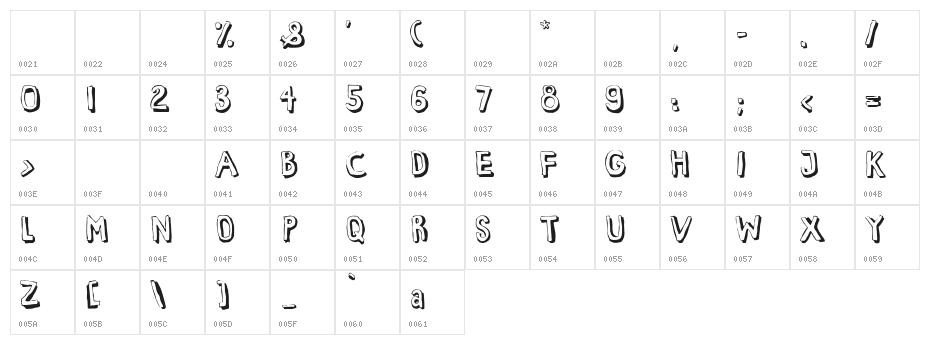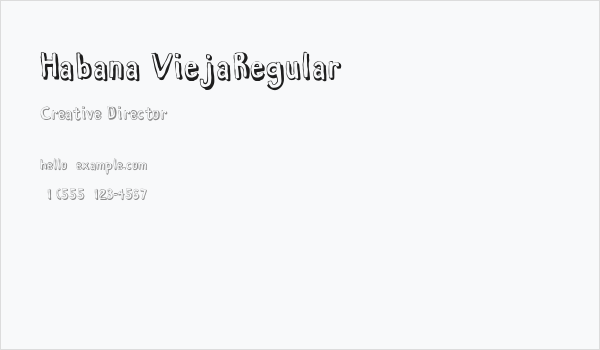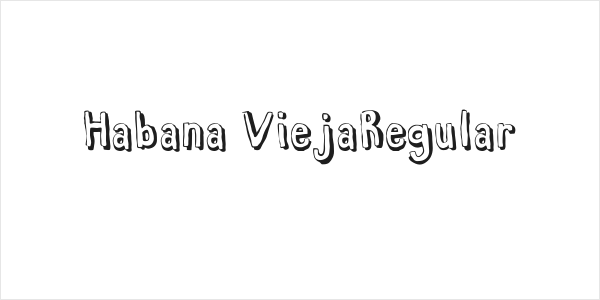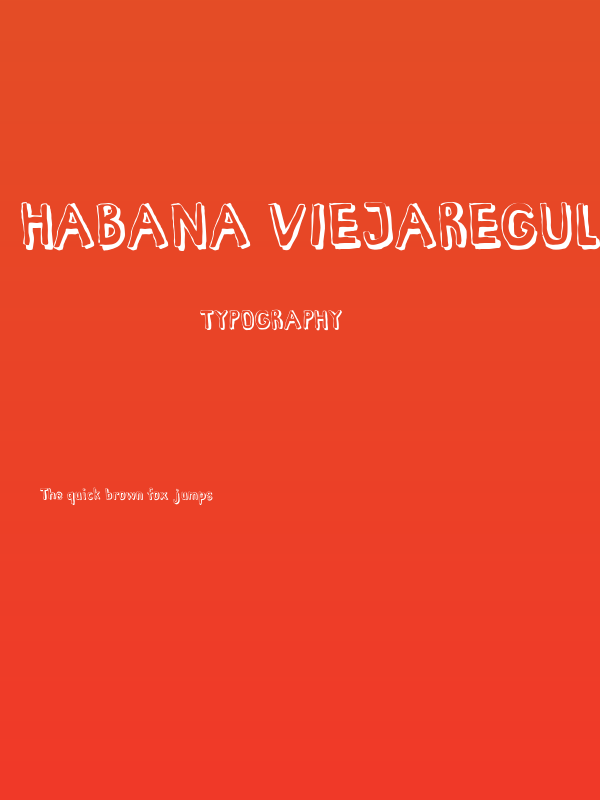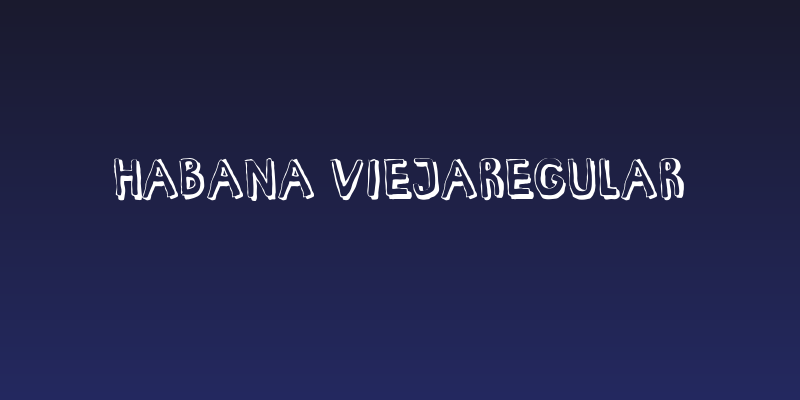
Habana ViejaRegular Font
Habana ViejaRegular Description
This font features a playful and bold design with a hand-drawn aesthetic. The characters are outlined with a thick, uneven stroke, giving them a three-dimensional appearance. The letters have a casual, informal style, reminiscent of graffiti or street art. The uppercase and lowercase letters maintain a consistent style, with rounded edges and a slightly irregular shape, adding to the font's charm. The numbers and special characters follow the same design principles, ensuring a cohesive look across all elements. This font is ideal for projects that require a fun and eye-catching typeface.